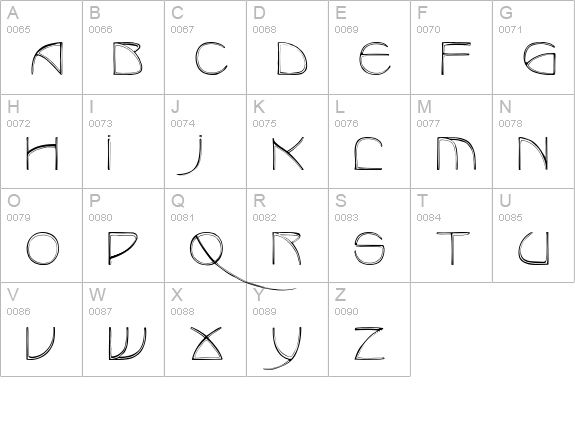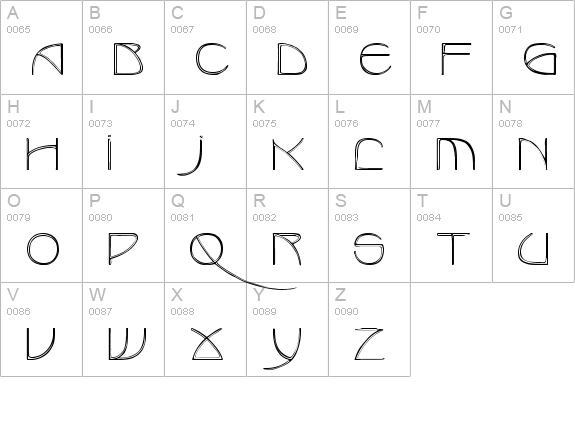
Introducing BenjaminCaps font - a stylish and versatile typeface that exudes elegance and sophistication. This unique font features clean lines and sharp edges, making it perfect for adding a touch of class to any design project. With its bold, uppercase characters, BenjaminCaps font commands attention and leaves a lasting impression. Best of all, BenjaminCaps font is completely free! You can download this premium font at FontsMarket.com and start using it in your projects today. Whether you're designing a logo, creating a poster, or crafting a website, BenjaminCaps font will elevate your work to the next level. Don't miss out on this opportunity to enhance your designs with the timeless beauty of BenjaminCaps font. Download it now and let your creativity shine!